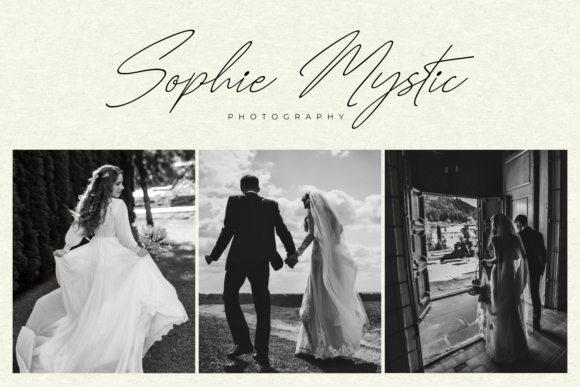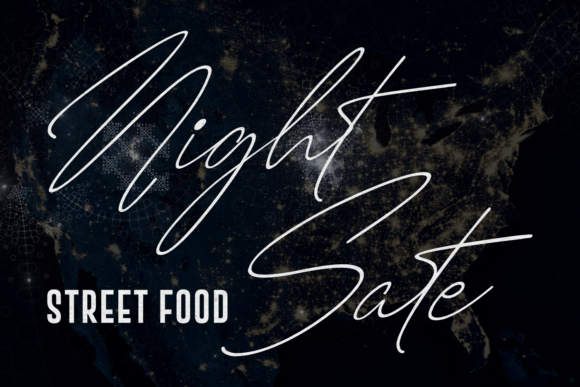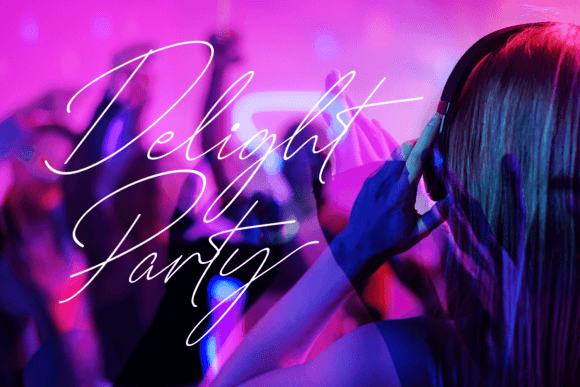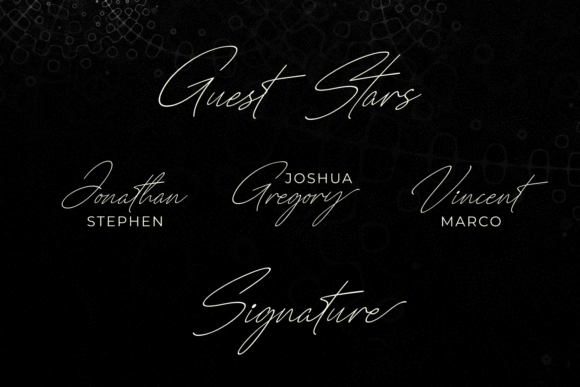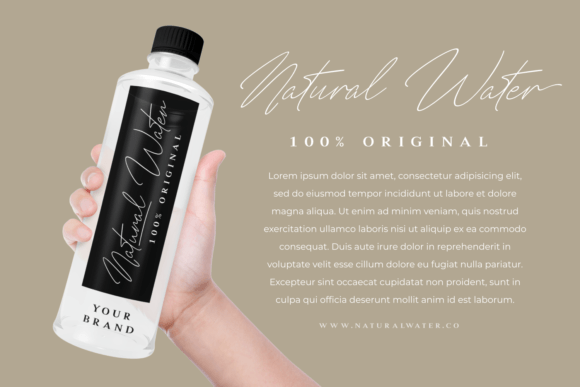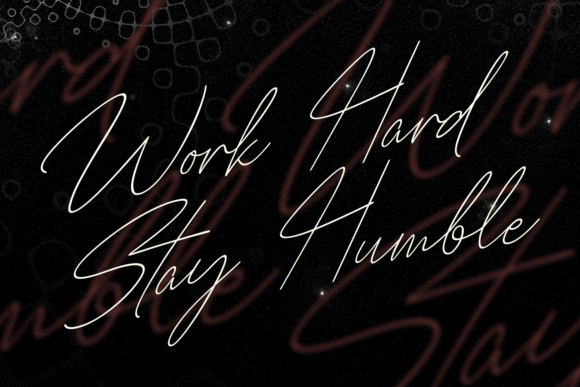
Introduction to Satisfactory Marks Font
Satisfactory Marks is a signature font with a stylish handwritten feel full of curves, swashes, lines, and more.
It’s perfect for greeting cards, magazines, headers, social media, and more This font is PUA encoded which means you can access all of the amazing glyphs and ligatures with ease.